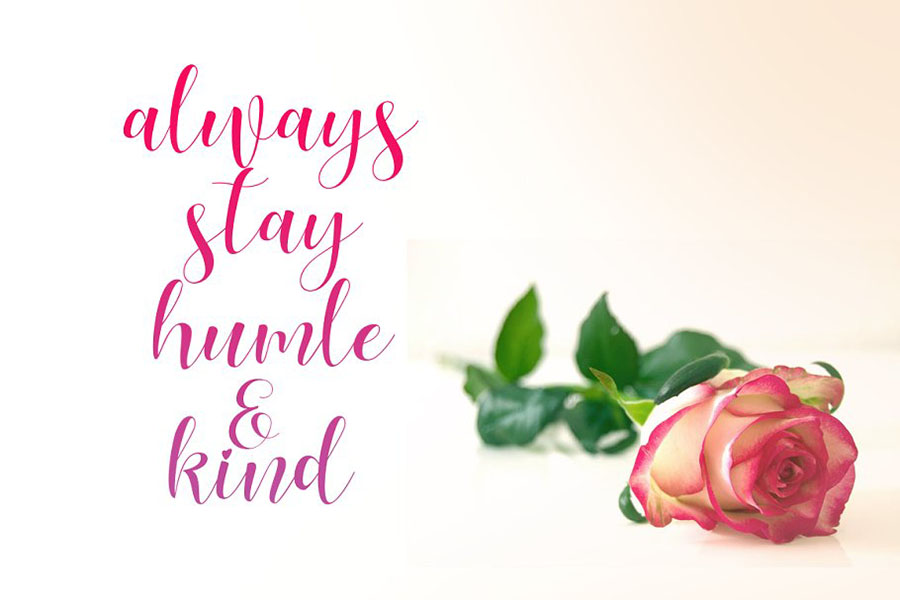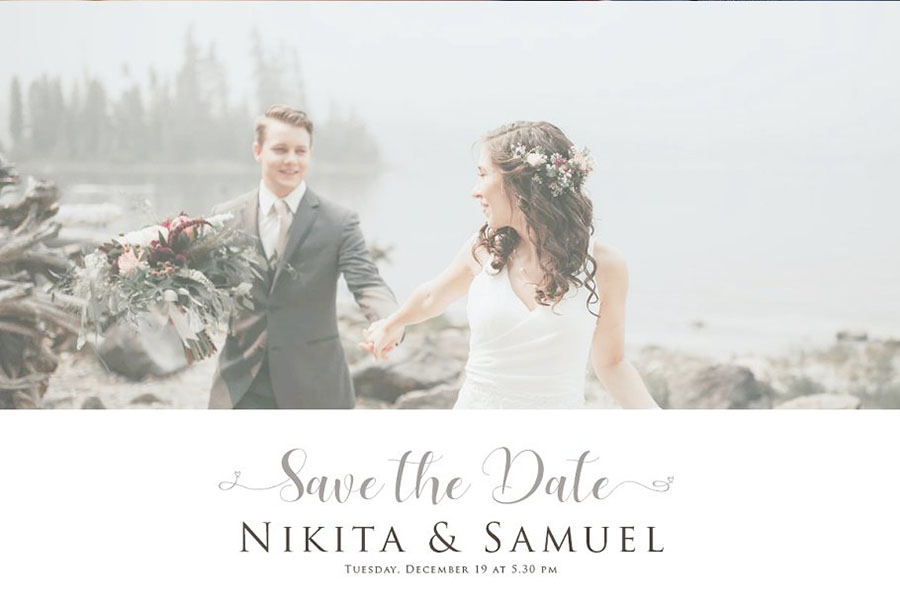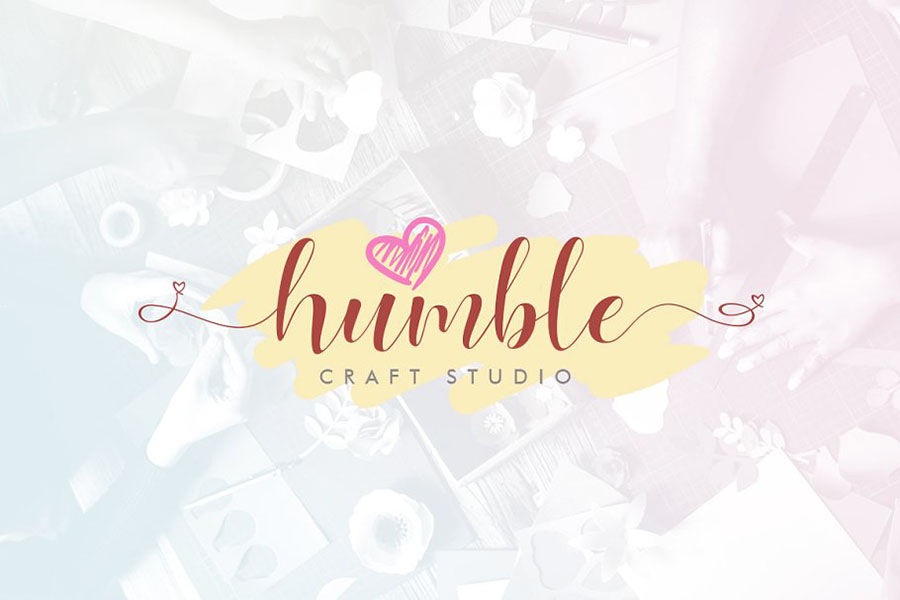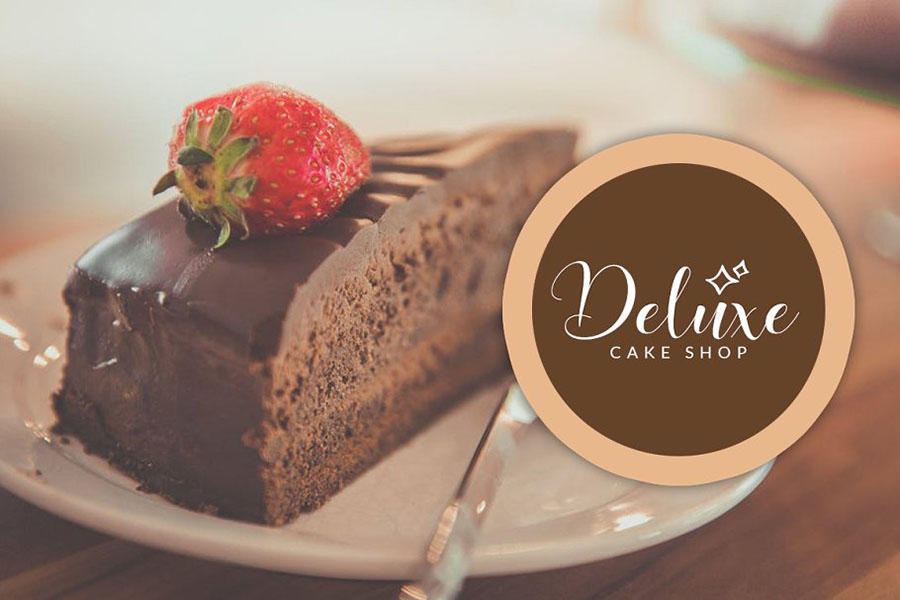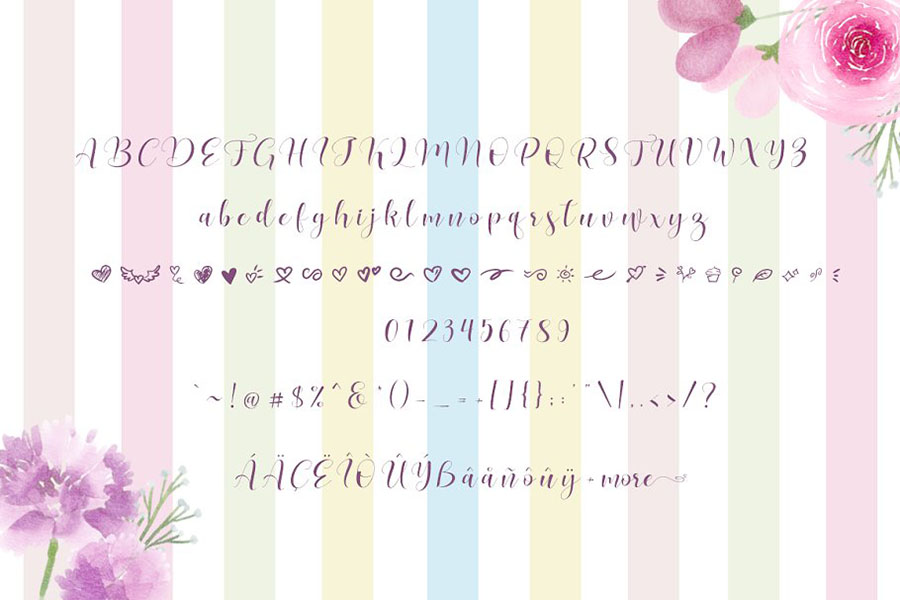
Lovea Handlettering Free Demo
Lovea Handlettering Free Demo is the part of a beautiful calligraphy, fresh & modern style font by Khurasan. The font comes with stylish and lovely look that makes it a perfect choice for you who try to add some cuteness to your design. Hence, this Script Font is suitable for logo, branding, greeting card, poster and any design that you create